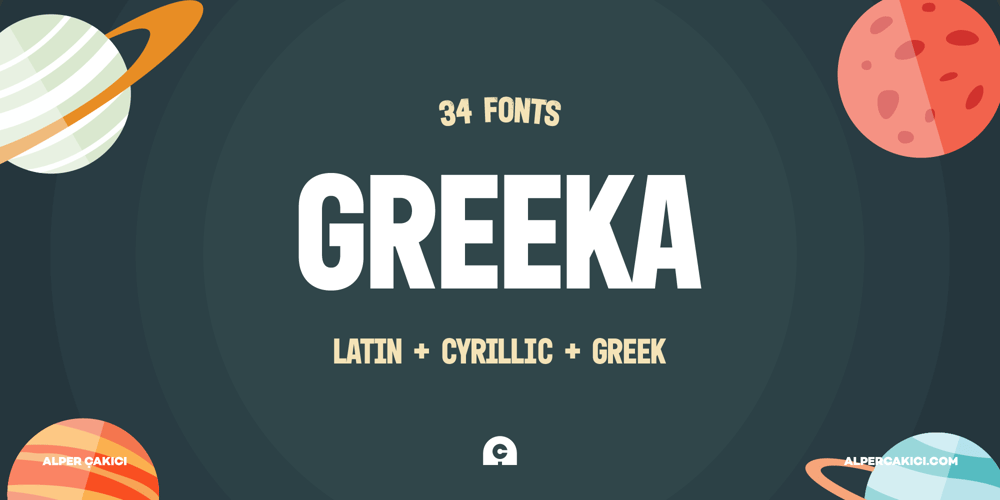
Greeka Font Family was designed by Alper Çakıcı and published by Umka Type. Greeka contains 34 styles and family package options. Greeka is a modern, versatile font with excellent kerning, making it ideal for both digital and print use. It features full support for the Cyrillic language, allowing for seamless multilingual communication. Greeka’s unique design combines classic proportions with a contemporary feel, making it stand out from other same categories fonts.Support for 103 languages: Belarusian Bosnian Bulgarian Chechen Macedonian Russian Serbian Ukrainian Greek Afrikaans Albanian Asu Basque Bemba Bena Breton Catalan Chiga Colognian Cornish Croatian Czech Danish Dutch Embu English Esperanto Estonian Faroese Filipino Finnish French Friulian Galician Ganda German Gusii Hungarian Icelandic Inari Sami Indonesian Irish Italian Jola-Fonyi Kabuverdianu Kalaallisut Kalenjin Kamba Kikuyu Kinyarwanda Lakota Latvian Lithuanian Lower Sorbian Luo Luxembourgish Luyia Machame Makhuwa-Meetto Makonde Malagasy Maltese Manx Meru Morisyen Northern Sami North Ndebele Norwegian Bokmål Norwegian Nynorsk Nyankole Oromo Polish Portuguese Quechua Romanian Romansh Rombo Rundi Rwa Samburu Sango Sangu Scottish Gaelic Sena Serbian Shambala Shona Slovak Soga Somali Spanish Swahili Swedish Swiss German Taita Teso Turkish Upper Sorbian Uzbek (Latin) Volapük Vunjo Walser Zulu